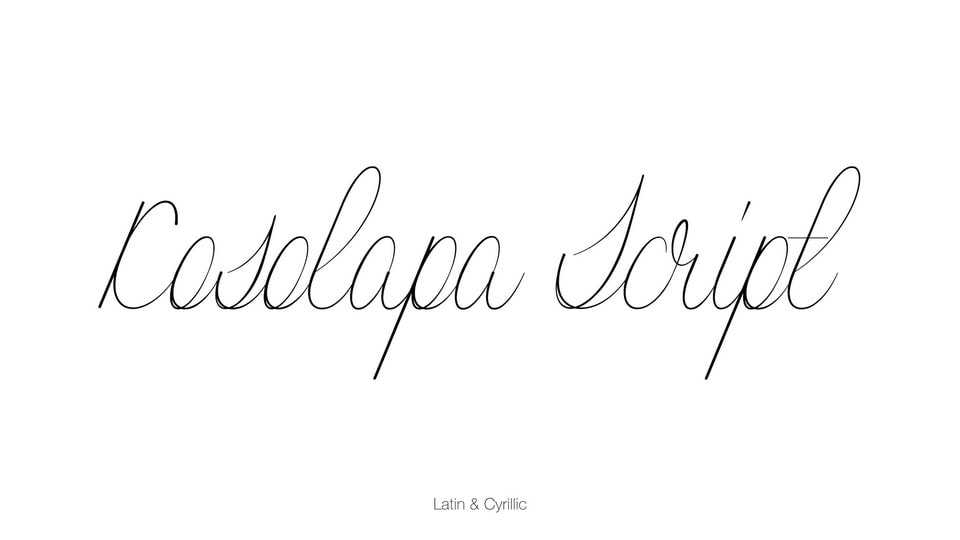
Download Kosolapa Script font, a delicate and graceful aesthetic calligraphic typeface that balances refined elegance with an expressive handwritten charm.
Designer: Alexey Mozgolin